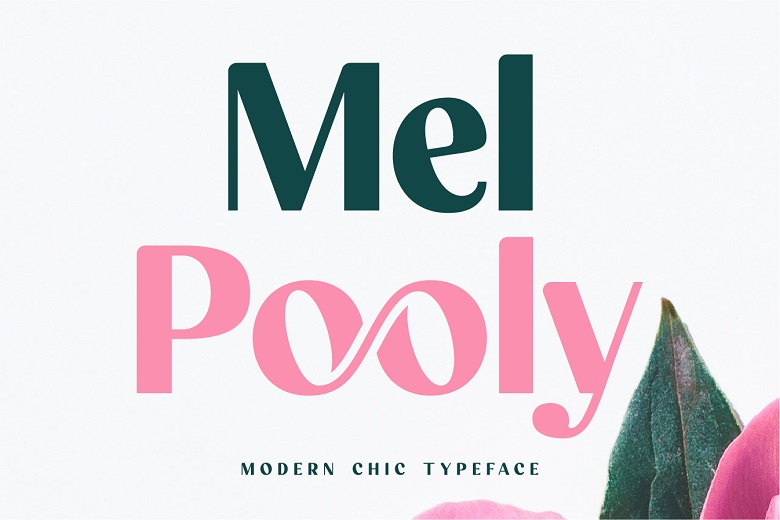
Mel Pooly Font
Mel Pooly font looks quite fresh, contemporary and stylish, so it can be assigned to the display fonts. It can be used for designing website, making business cards and actually anything that may demand an elegant and powerful look.
Mel Pooly Sans Serif Font